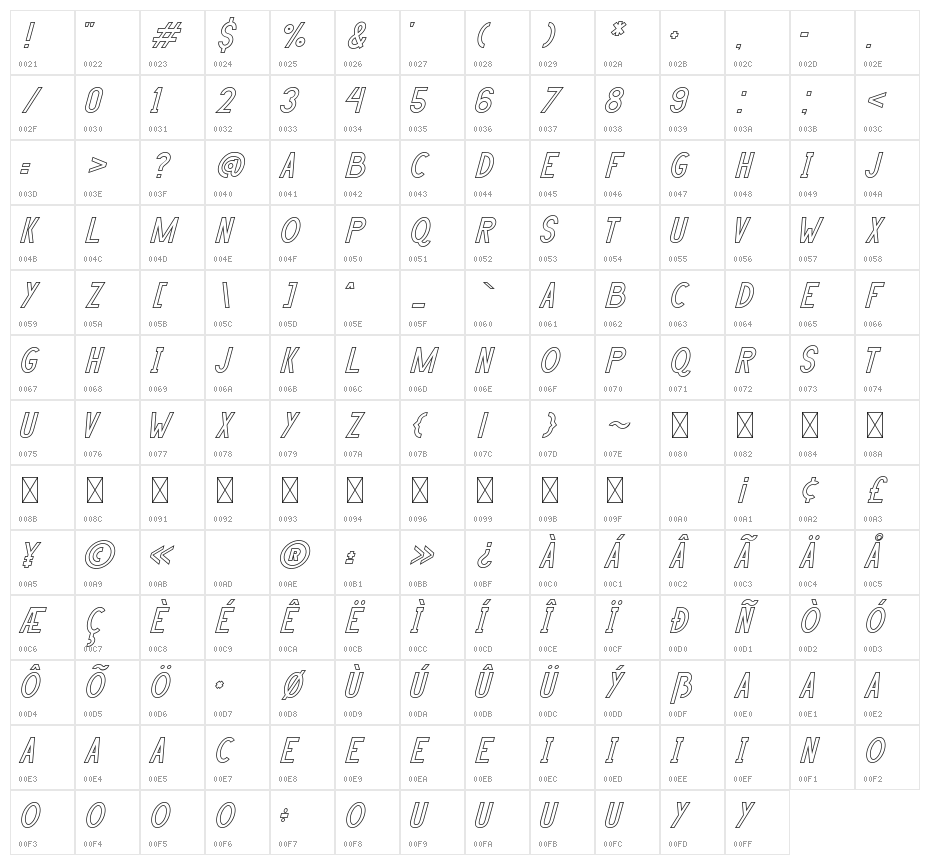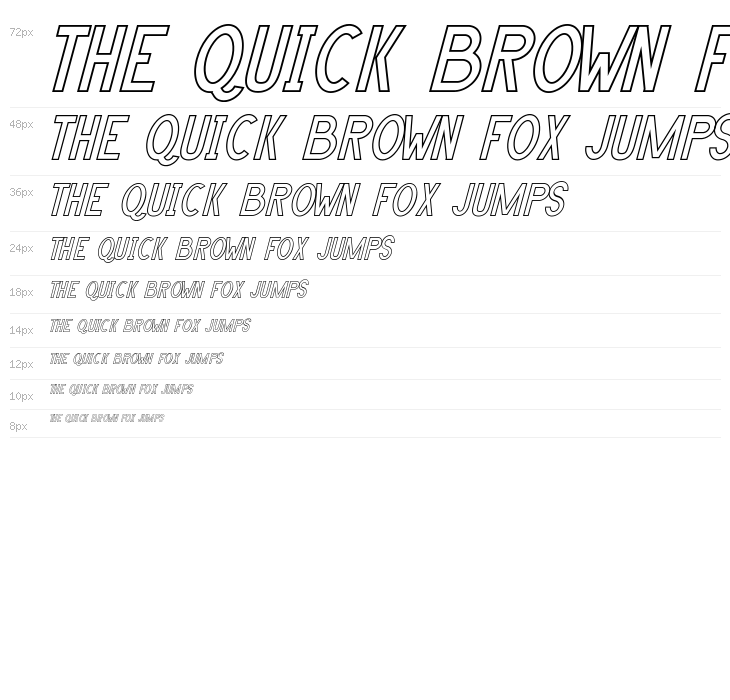
HANDA OUTLINE Italic Font
HANDA OUTLINE Italic Description
This font features a modern, sleek outline style with a distinct italic slant, giving it a dynamic and forward-moving appearance. The characters are evenly spaced with a consistent stroke width, creating a clean and organized look. The uppercase and lowercase letters maintain a uniform height, enhancing readability. The numerals are well-proportioned, aligning seamlessly with the alphabetic characters. Special characters are included, matching the overall aesthetic. This font's outline design makes it stand out, ideal for projects needing a bold yet elegant touch.
| Proposed Projects | Ideal for headlines, posters, logos, and branding materials that require a modern and eye-catching appearance. |